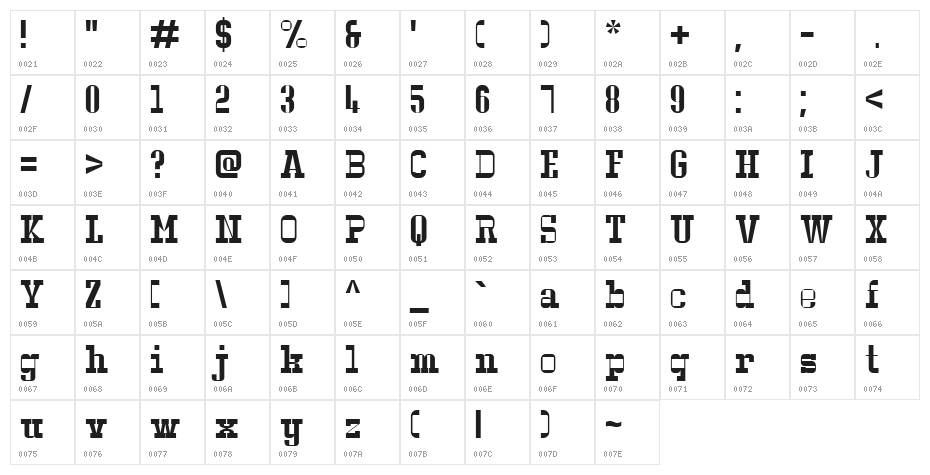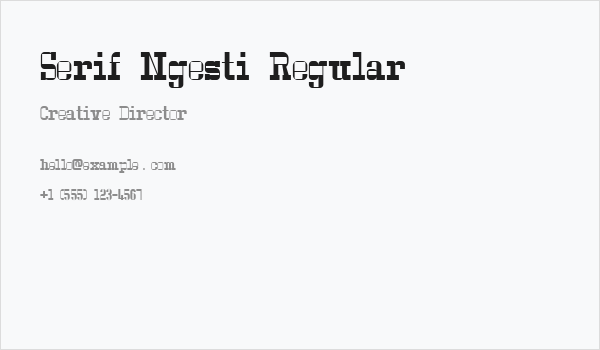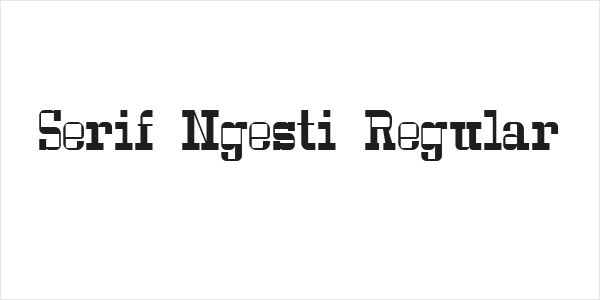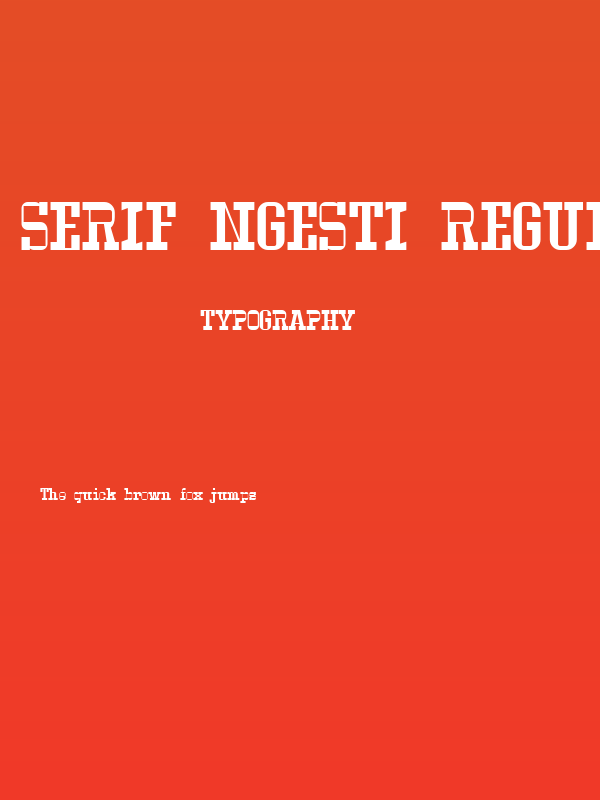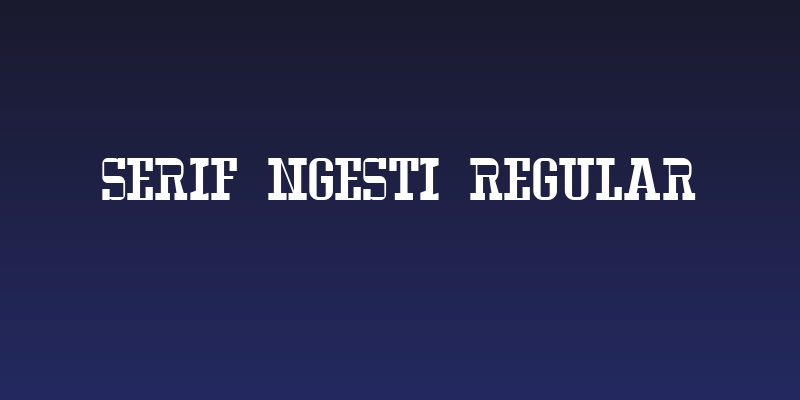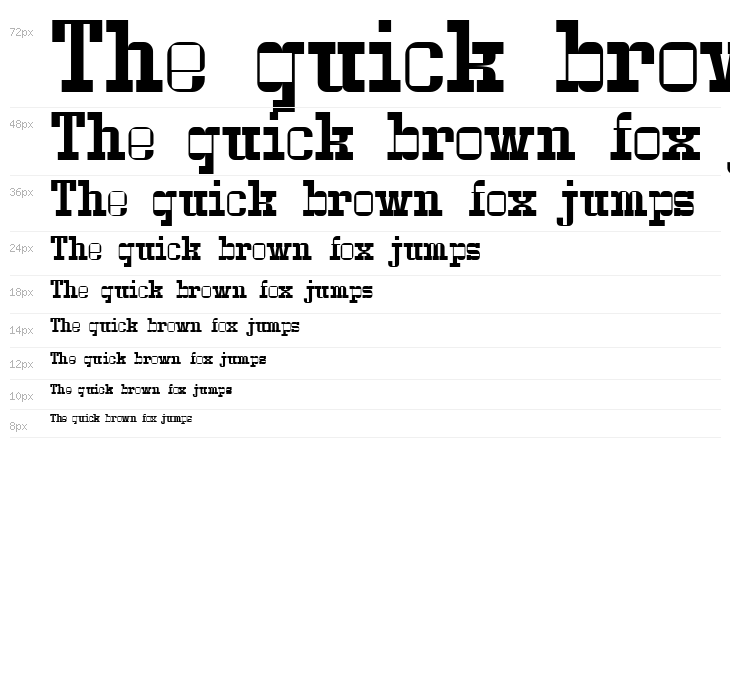
Serif Ngesti Regular Font
Serif Ngesti Regular Description
This font features a bold and striking slab serif style with strong geometric shapes and thick strokes. The uppercase letters are robust and commanding, while the lowercase letters maintain a consistent weight and structure. Numbers are equally bold, ensuring readability and impact. The special characters are designed to match the overall aesthetic, providing a cohesive look across all glyphs. This font's design is reminiscent of vintage typefaces, yet it maintains a modern edge with its clean lines and balanced proportions.
| Overall Style | Vintage, Modern |
| Proposed Projects | Ideal for branding, headlines, posters, and any project requiring a bold, impactful typeface. |